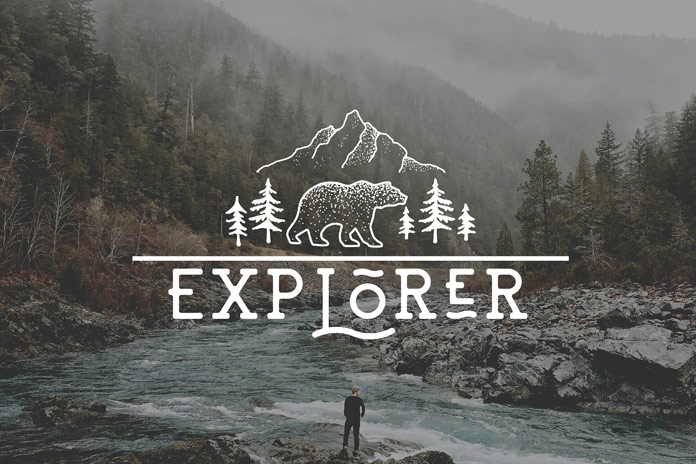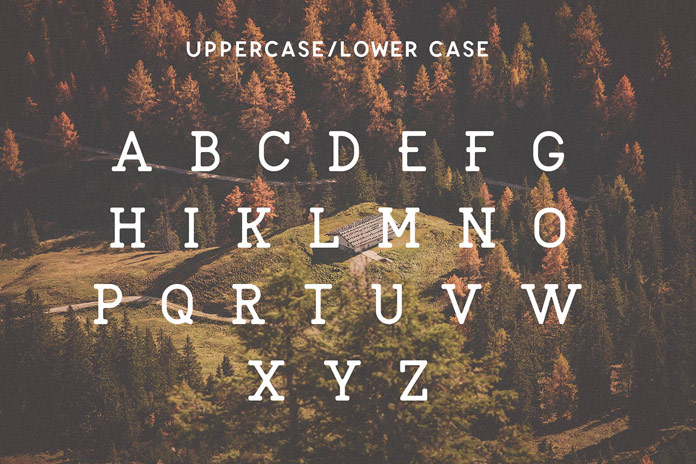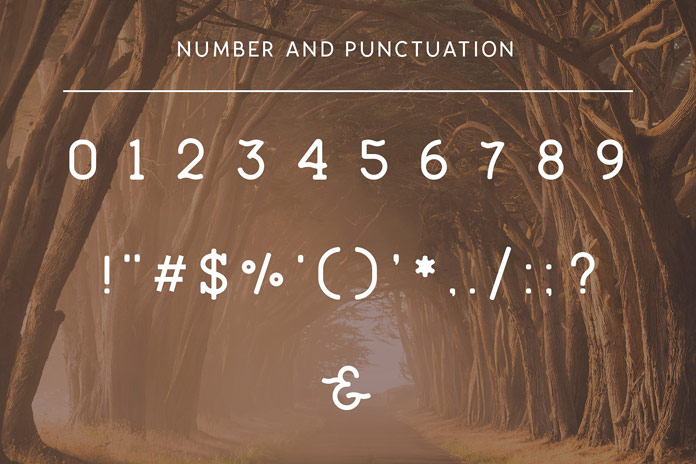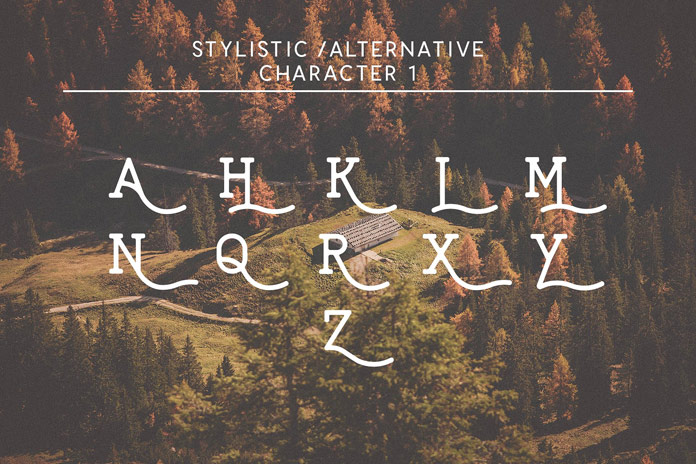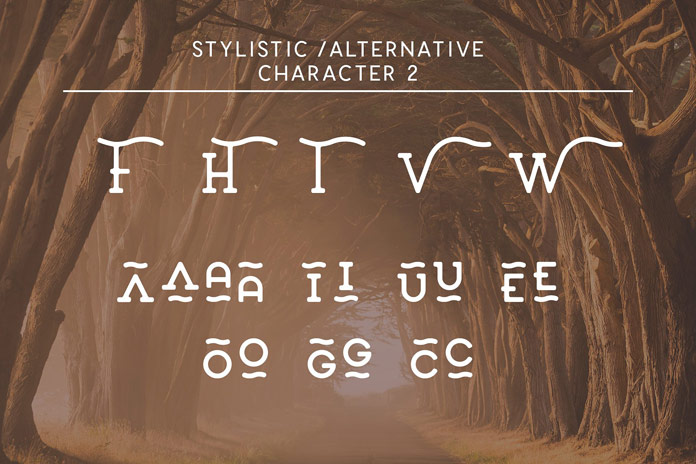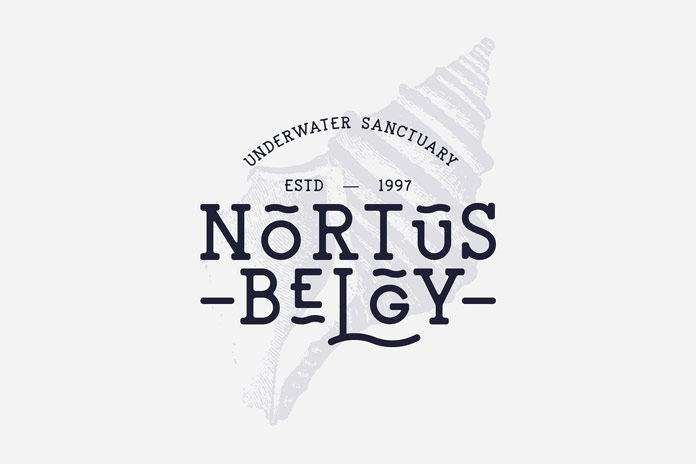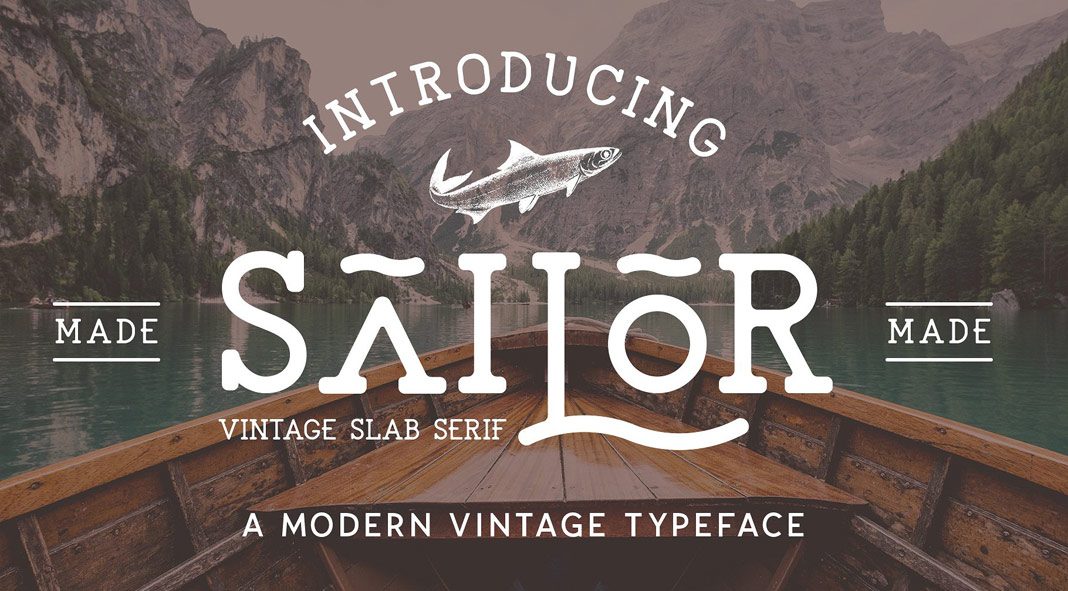
The Sailor Typeface, a vintage-inspired font by Icarus Bro.
The Sailor Typeface is a fine example of a vintage-inspired slab serif font. Equipped with smooth edges to simulate an authentic vintage printing look, this typeface is well suited for vintage logo designs, headers, and short text sections. It consists of a set of uppercase letters as well as numerous alternative character, numbers, and symbols. Do you like it? Feel free to click on the following link to get further information.